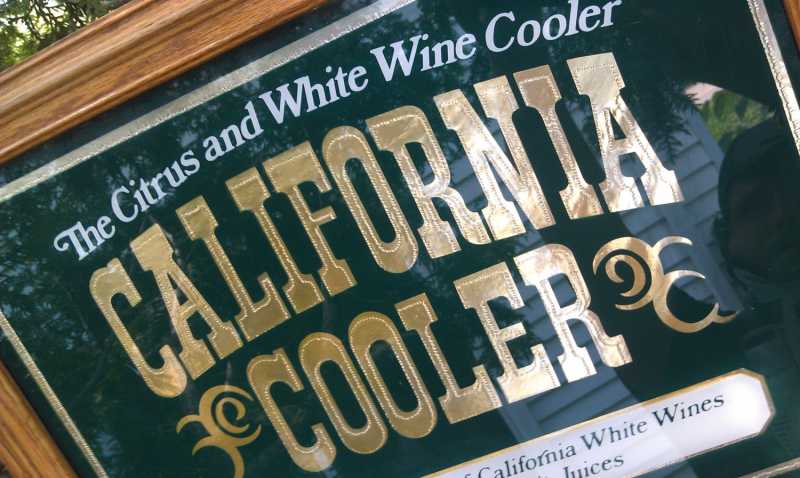
Can anyone identify this font for me Please. I am just looking for the font at the very top,
The Citrus and White Wine Cooler txt.
It looks like Bookmania (Semibold Italic) .
You can find this specific |T| in stylistic alternate glyphs: